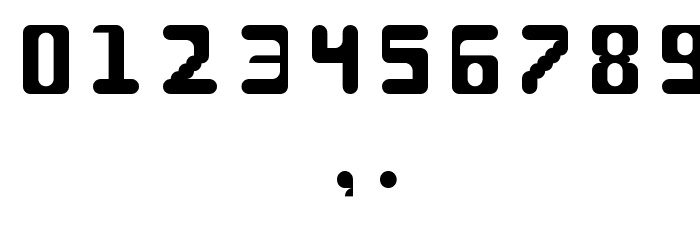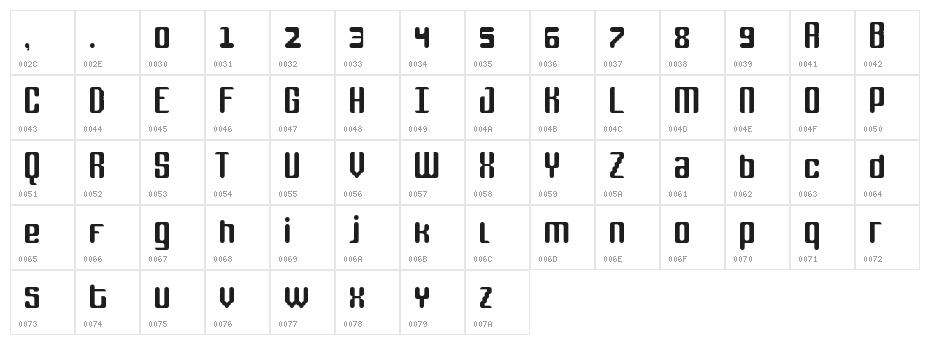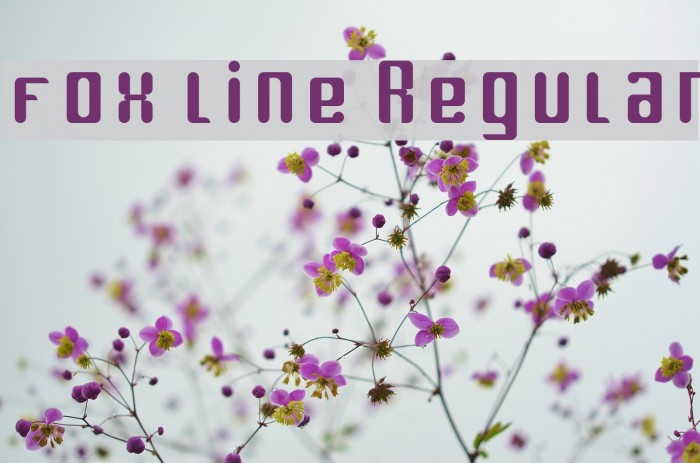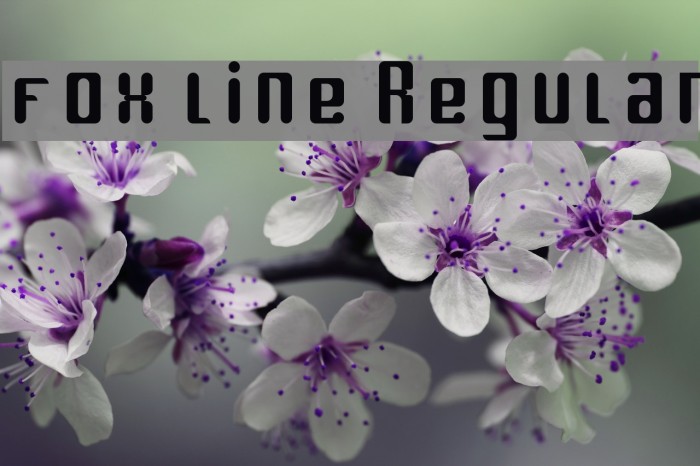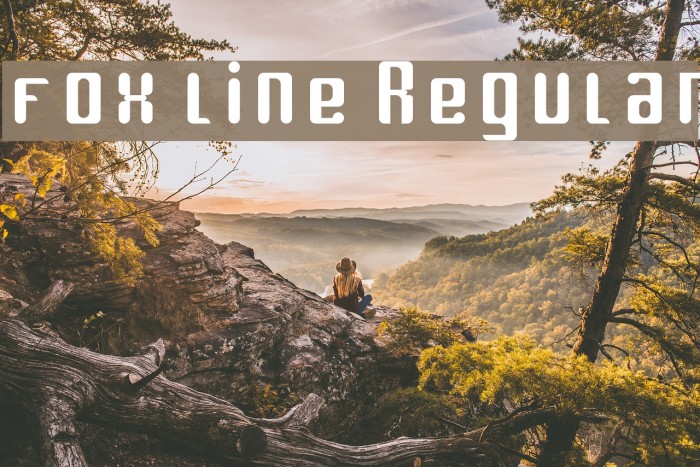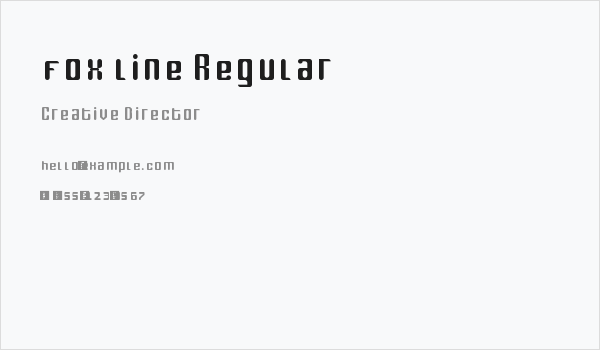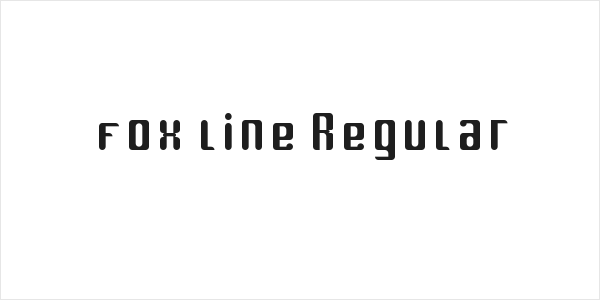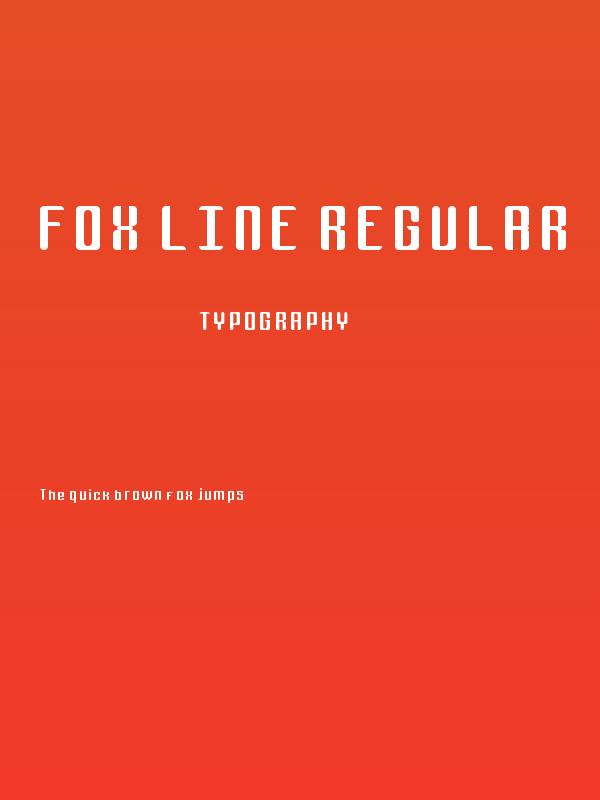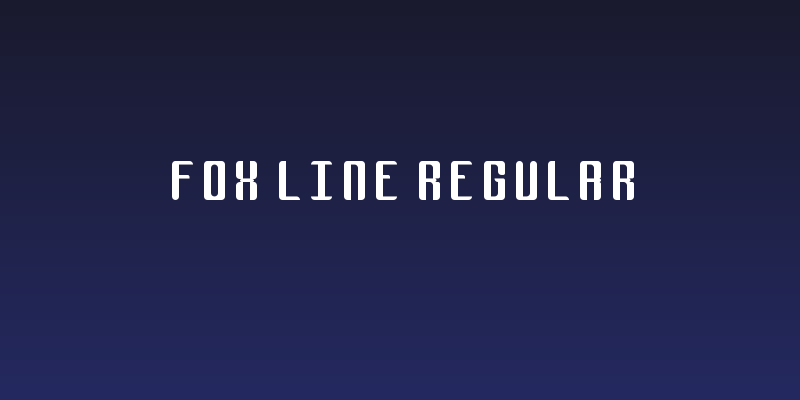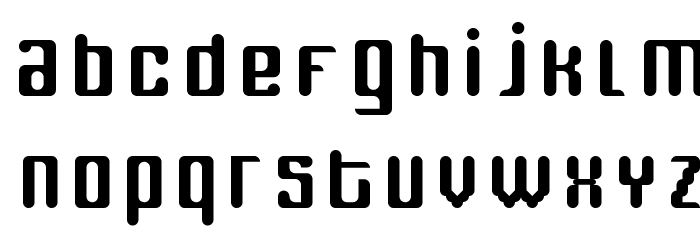
fox line Regular Font
fox line Regular Description
This font features a bold, geometric style with a modern twist. The characters are constructed with a uniform stroke width, giving it a monospaced appearance. The design incorporates rounded corners and a slight stencil-like effect, adding a unique touch to each letter. The uppercase letters are distinct and easily readable, while the lowercase letters maintain a consistent style with subtle variations. The numerals are clear and bold, matching the overall aesthetic of the font. Special characters are designed to blend seamlessly with the rest of the typeface, ensuring versatility in usage.
| Proposed Projects | Ideal for branding, posters, and digital media where a modern and bold statement is needed. |